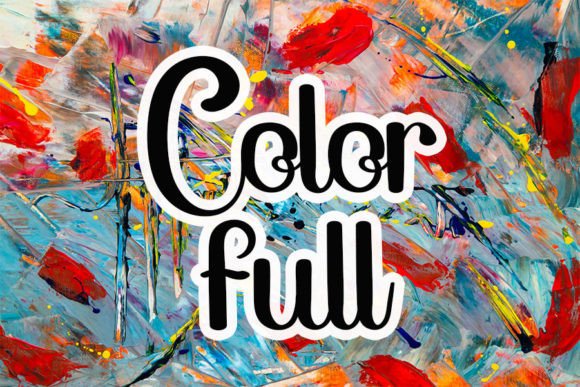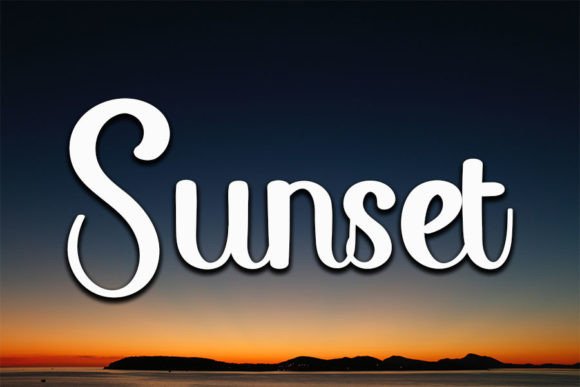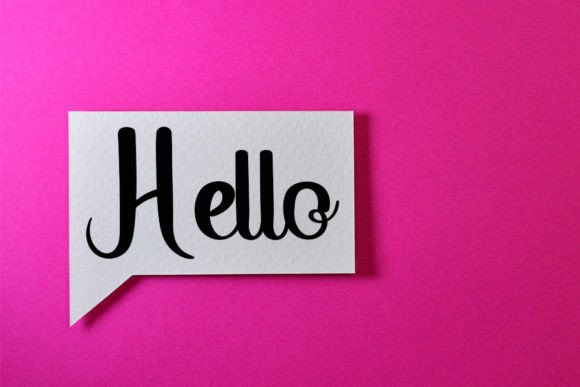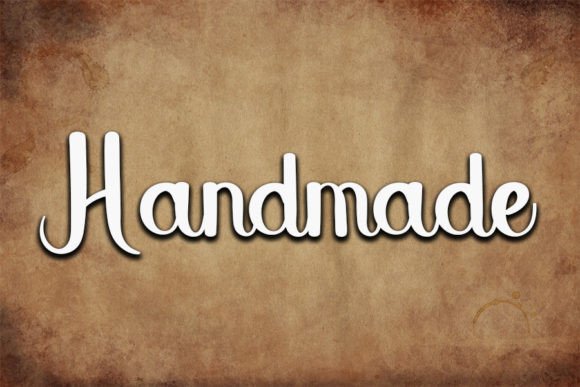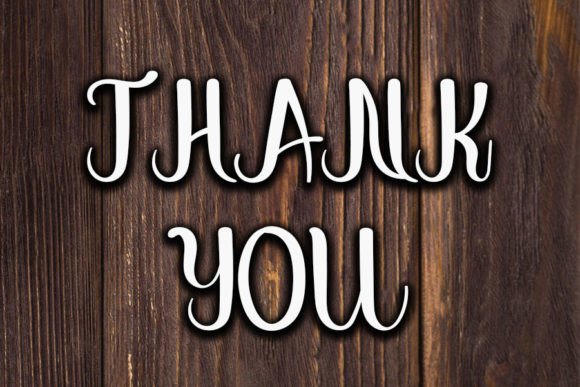
Balloon Font
About Balloon Font
“Balloon” is a colorful handwritten font that combines elegance with a touch of playfulness. Clean and slightly quirky, this font is a versatile choice suitable for various design applications, including logos, branding, social media, and crafty DIY projects.
The appeal of “Balloon” lies in its ability to convey a sense of both sophistication and fun. The font’s handwritten style creates a lively and engaging aesthetic that can enhance a wide range of design elements, making it suitable for numerous creative endeavors.
One of the standout features of “Balloon” is its versatility. It can seamlessly adapt to different design themes and moods, making it a valuable asset for your creative projects. Whether you’re aiming for an elegant yet playful look or want to add a touch of quirkiness to your designs, “Balloon” is a font that can accommodate your vision.
When you incorporate “Balloon” into your projects, you can expect your creations to exude a sense of creativity and charm. This font has the power to make your designs stand out and capture the attention of your audience.
In summary, “Balloon” is not just a font; it’s a design asset that can enhance your creative projects with its colorful and handwritten style. Its versatility and touch of elegance make it a valuable addition to your design toolkit. Feel confident in using “Balloon” to elevate any creation, as it has the potential to bring a sense of creativity and playfulness to your designs!